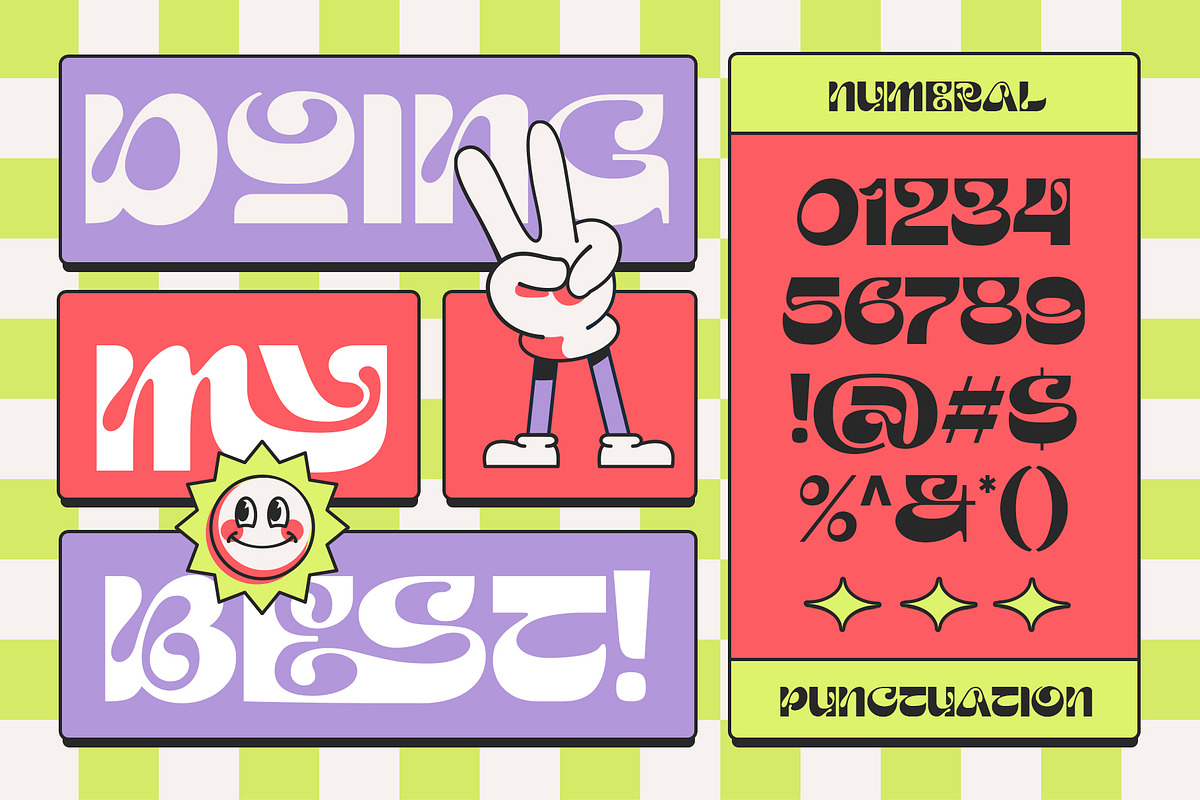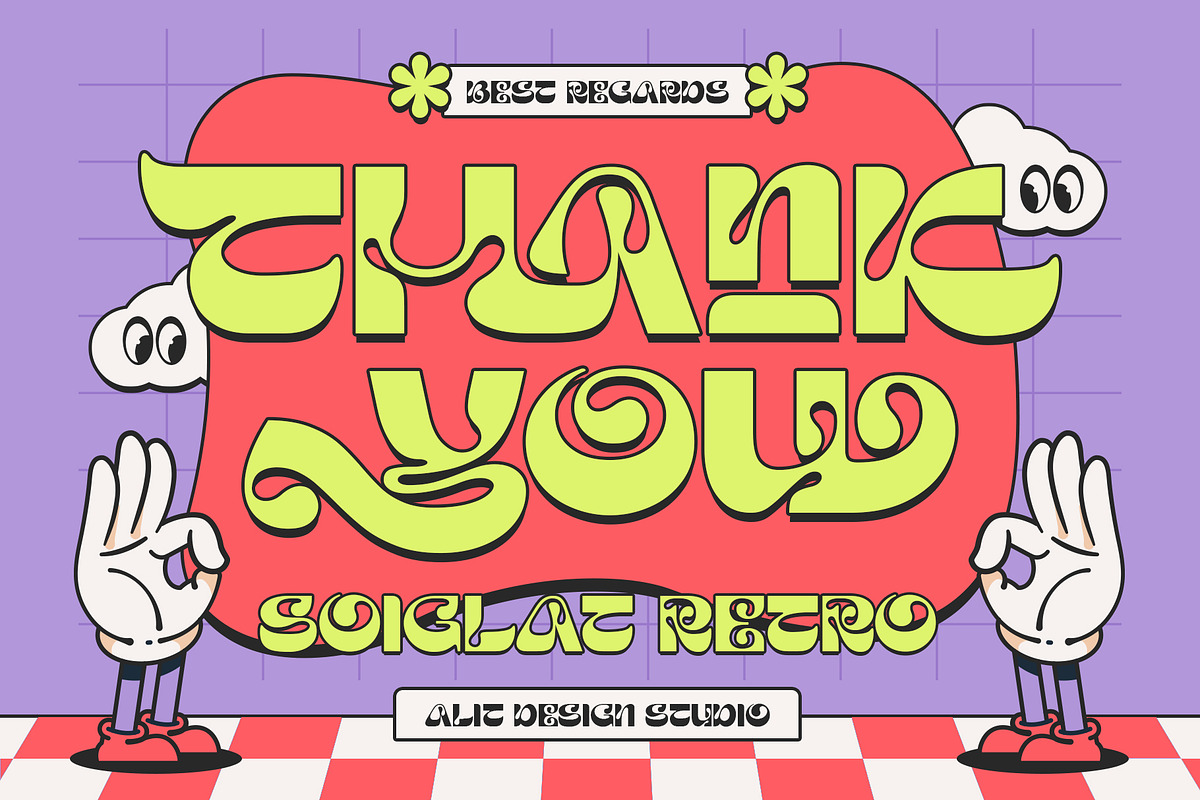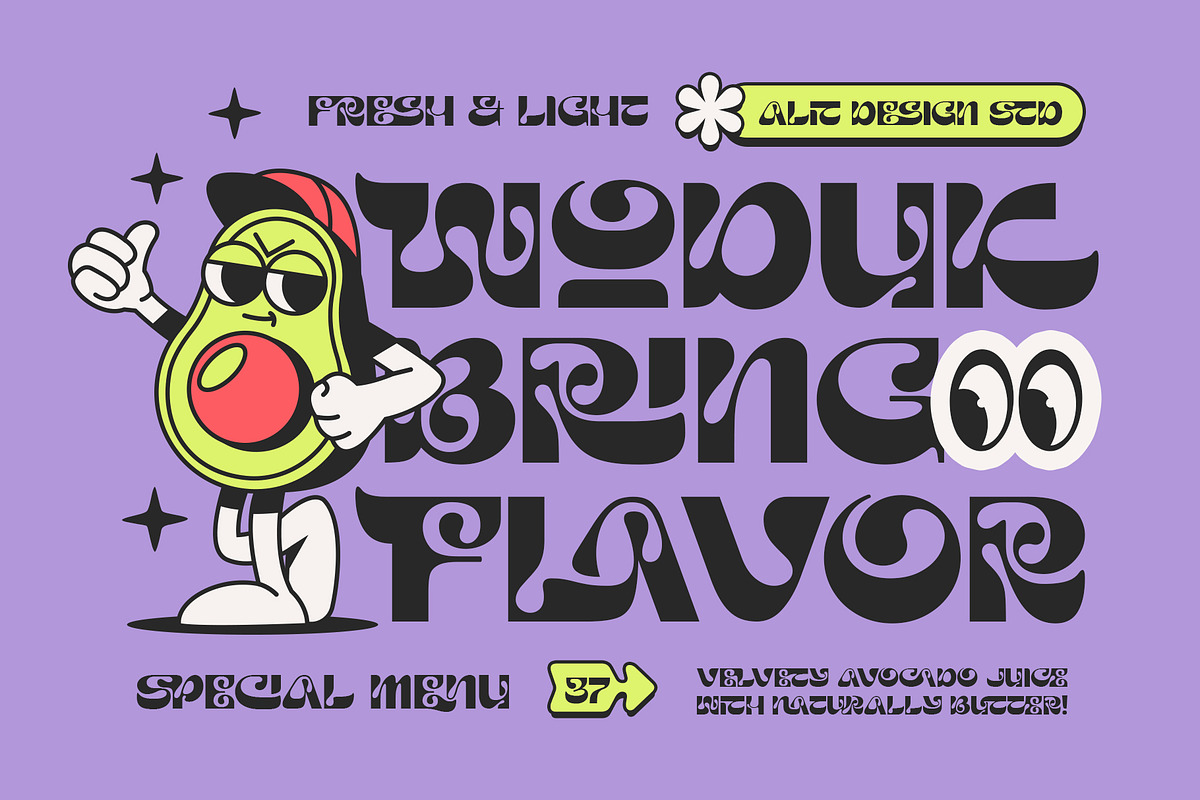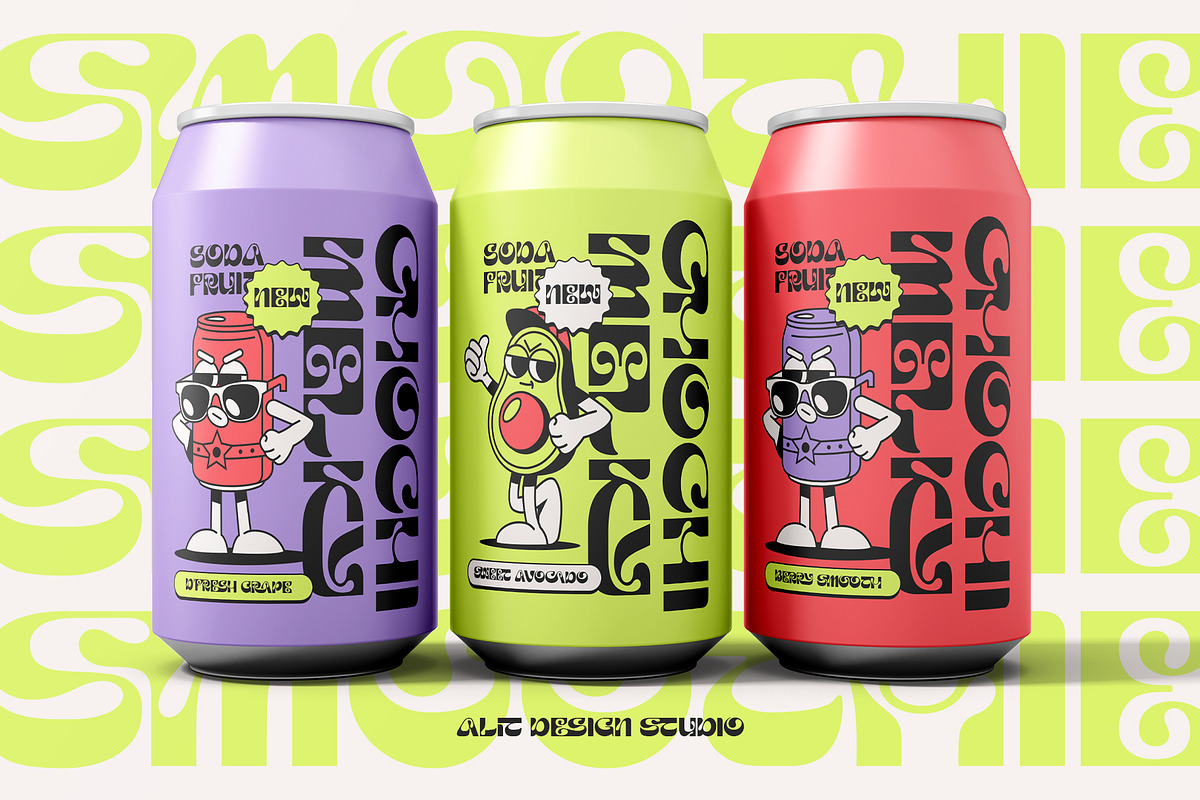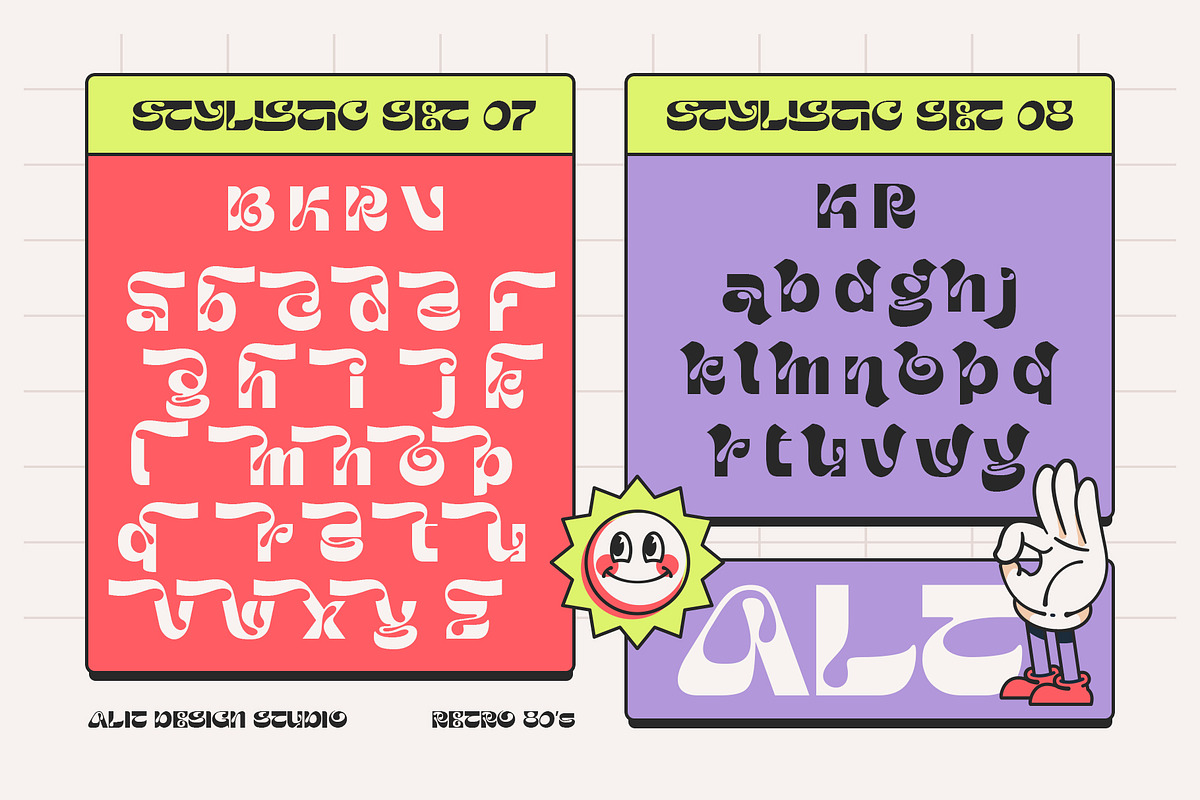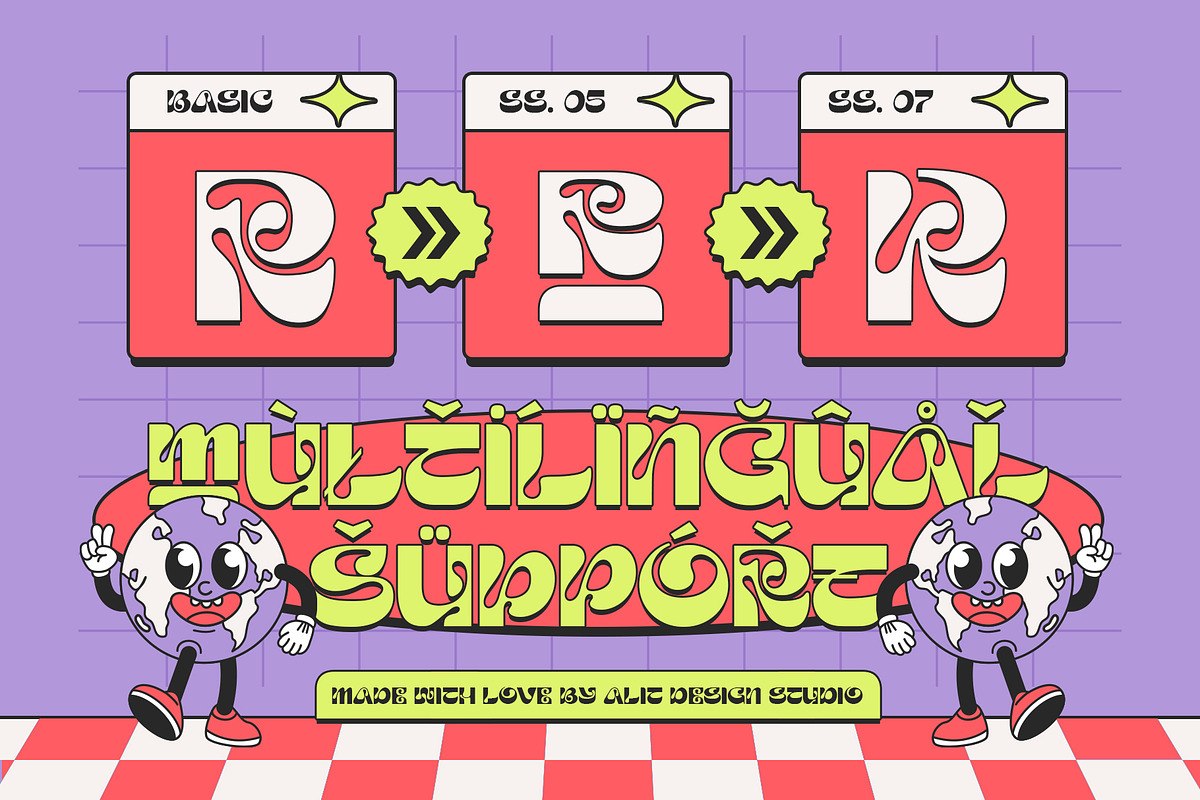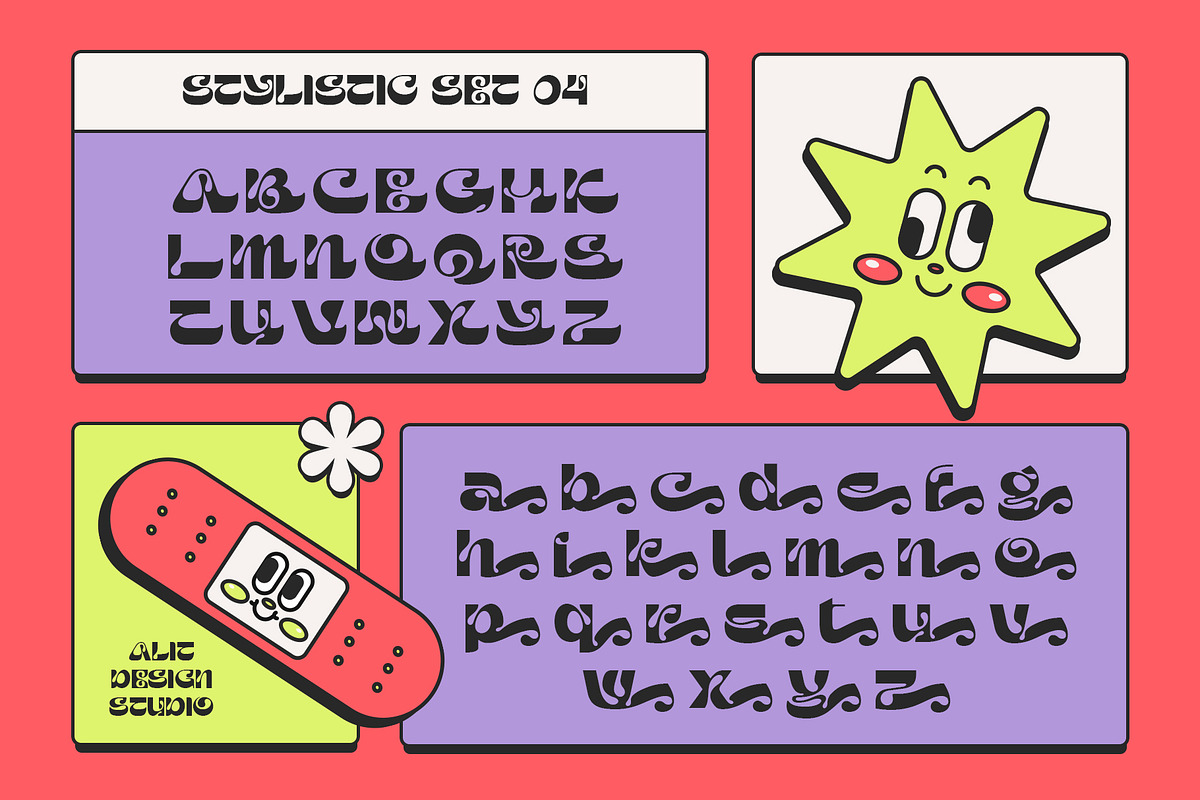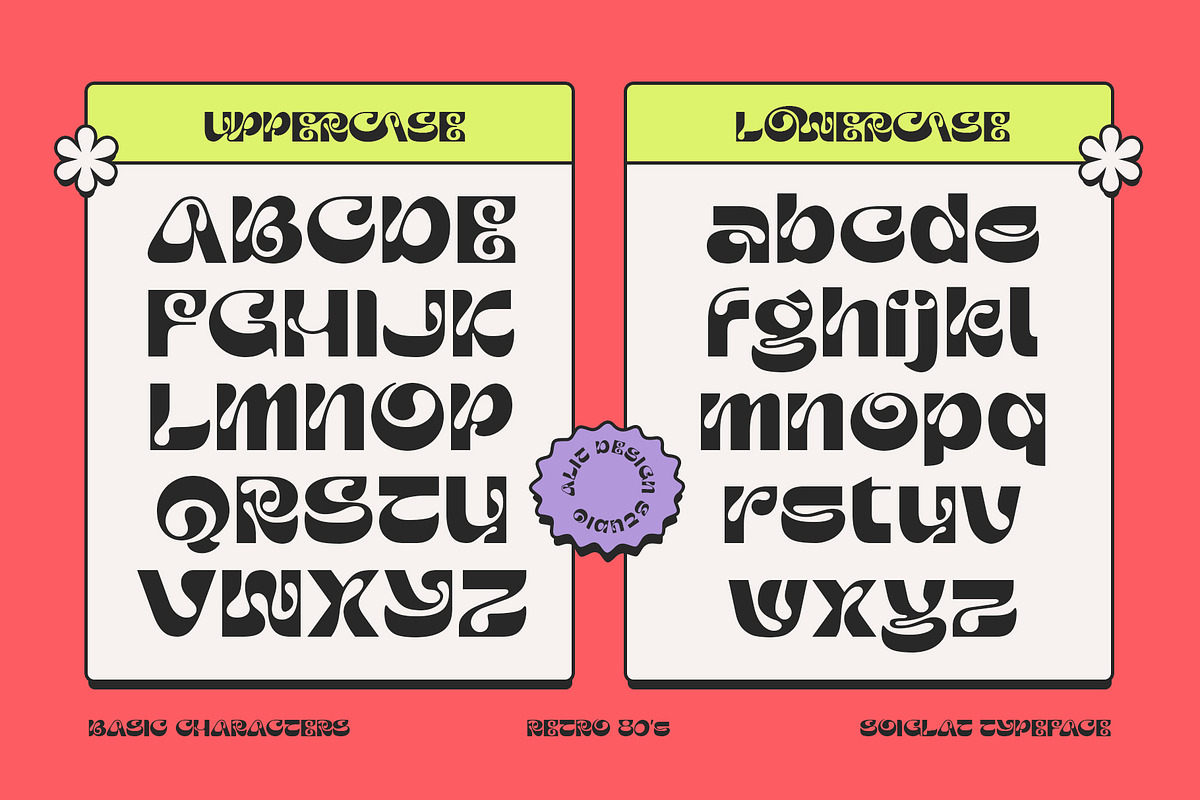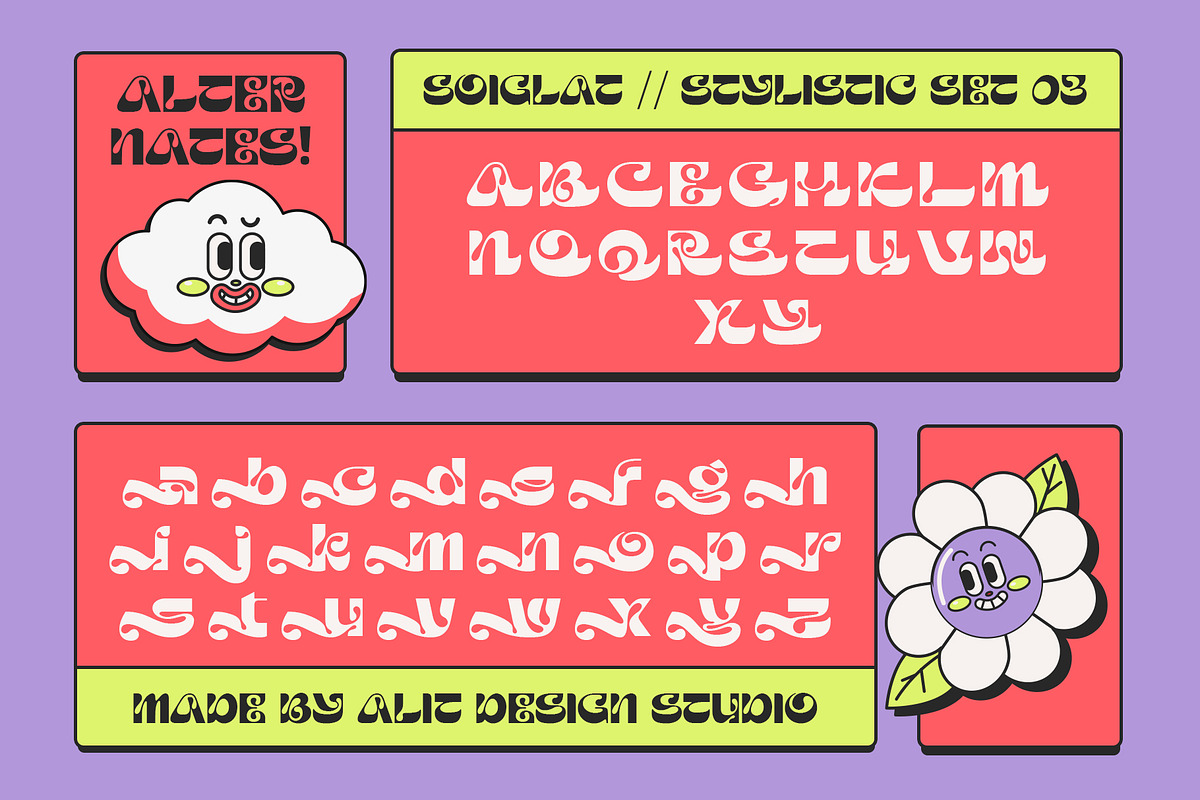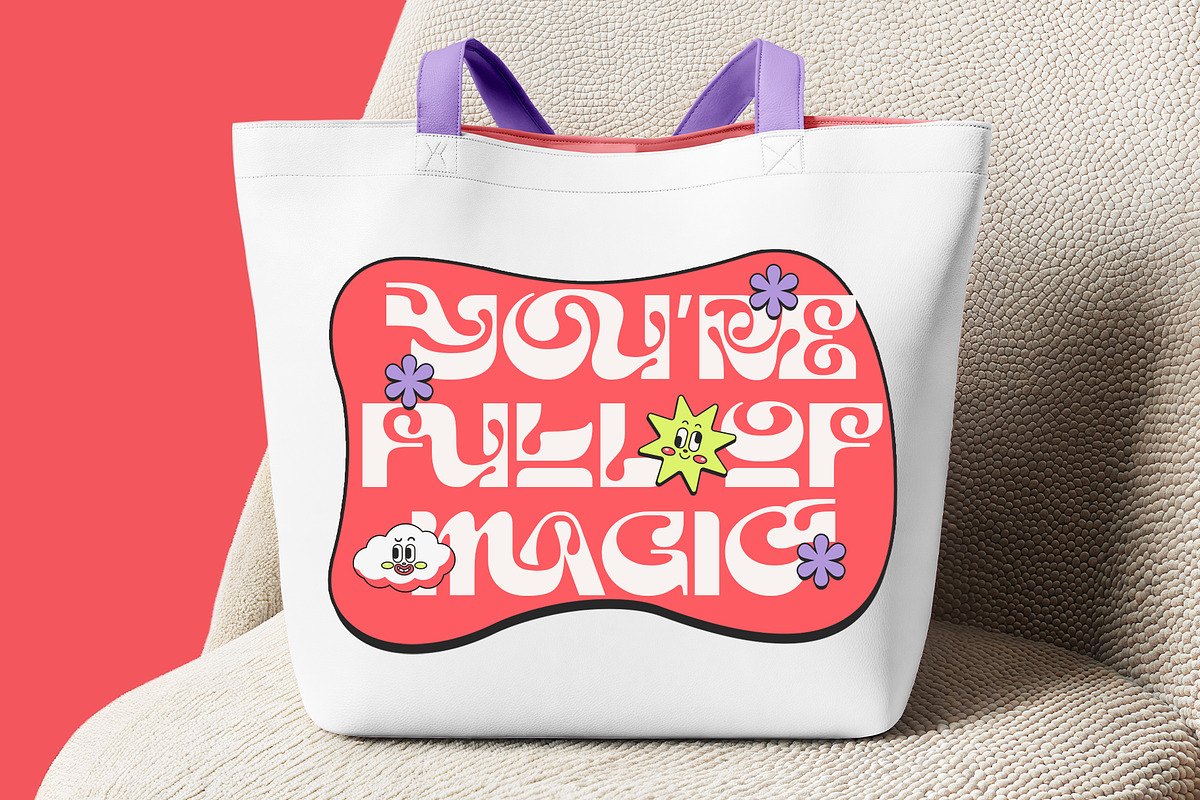
Soiglat Typeface
Soiglat – Groovy Retro 80s & Liquid Display Font
Get your groove on! Meet Soiglat, the ultimate shapeshifting retro typeface.
Step into a time machine tailored for the modern designer. Soiglat is a funky, liquid-style display font that perfectly captures the playful spirit of the Retro 80s and 90s, blended with a fresh, psychedelic twist.
Designed by Alit Design Studio, Soiglat isn't just a font; it’s a design toolkit. With its bubbly curves, deep ink traps, and "melting" aesthetic, it screams fun, freedom, and creativity. Whether you are designing a streetwear brand, a trippy music festival poster, or eye-catching packaging for a coffee shop, Soiglat brings that authentic vintage character that stops the scroll.
Why You’ll Love Soiglat:
- Insane Versatility (1,021 Glyphs!): This isn't just a standard alphabet. Soiglat comes packed with over 1,000 glyphs, including massive collections of Stylistic Sets (SS01-SS08). You can mix and match characters to create typography that looks like custom lettering.
- The "Liquid" Look: The alternates feature unique, swirling shapes that make the text look like it's bubbling or melting—perfect for the "Acid Graphics" and Y2K trends.
- Ready for Anything: From bold headlines to quirky logos, it works effortlessly for both print and digital media.
- 🎨 Poster Design: Gig posters, art exhibitions, and retro events.
- 👕 Merchandise: T-shirt graphics, streetwear branding, and tote bags.
- 📦 Packaging: Trendy food & beverage labels (think craft beer, coffee, or milkshakes).
- 📱 Social Media: Instagram quotes, sticker packs, and YouTube thumbnails.
- 💿 Album Art: Funk, Indie, Pop, and Lo-fi music covers.
- Huge Library of Alternates & Ligatures
- Multilingual Support (Accents & Special Characters)